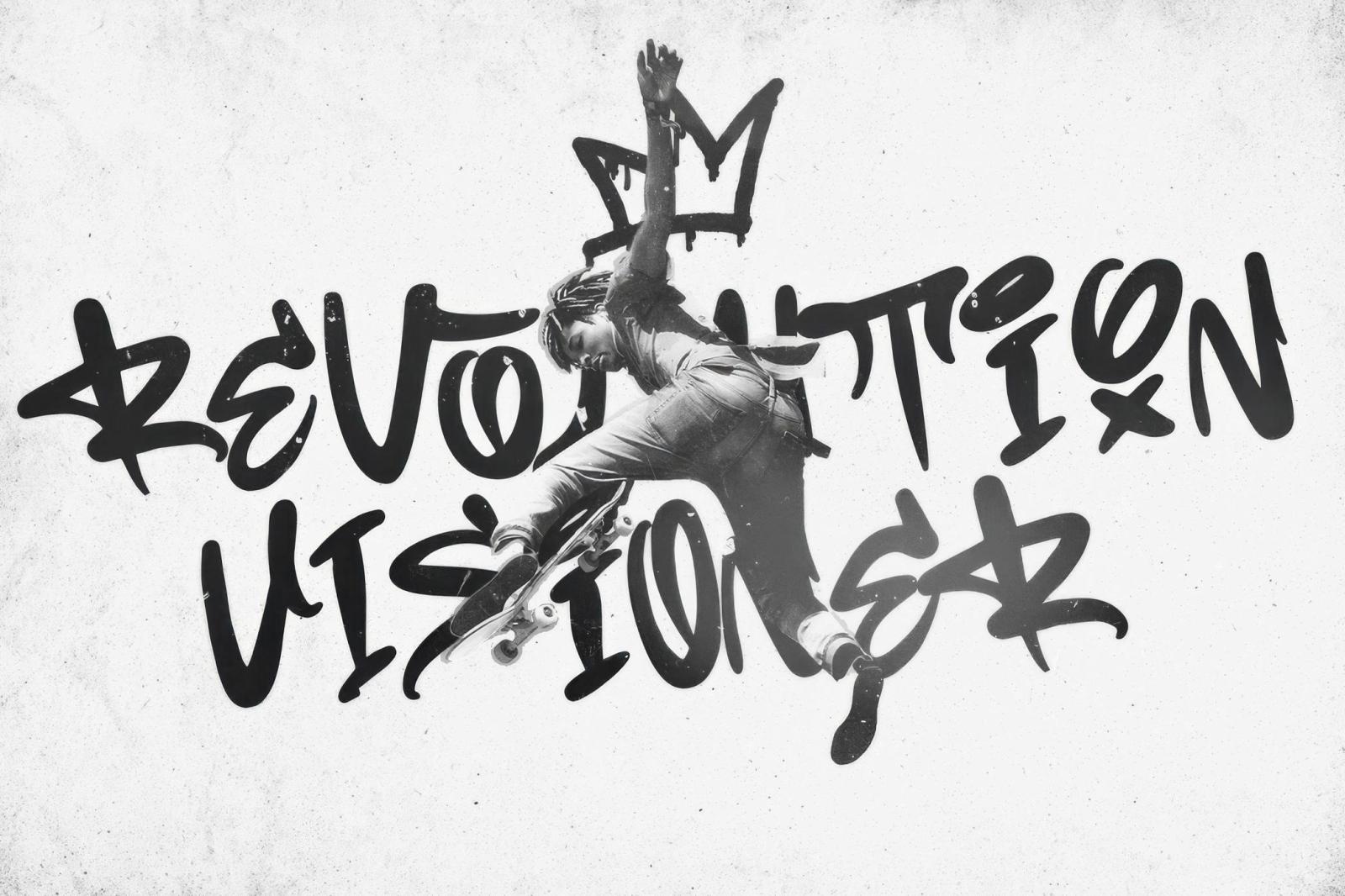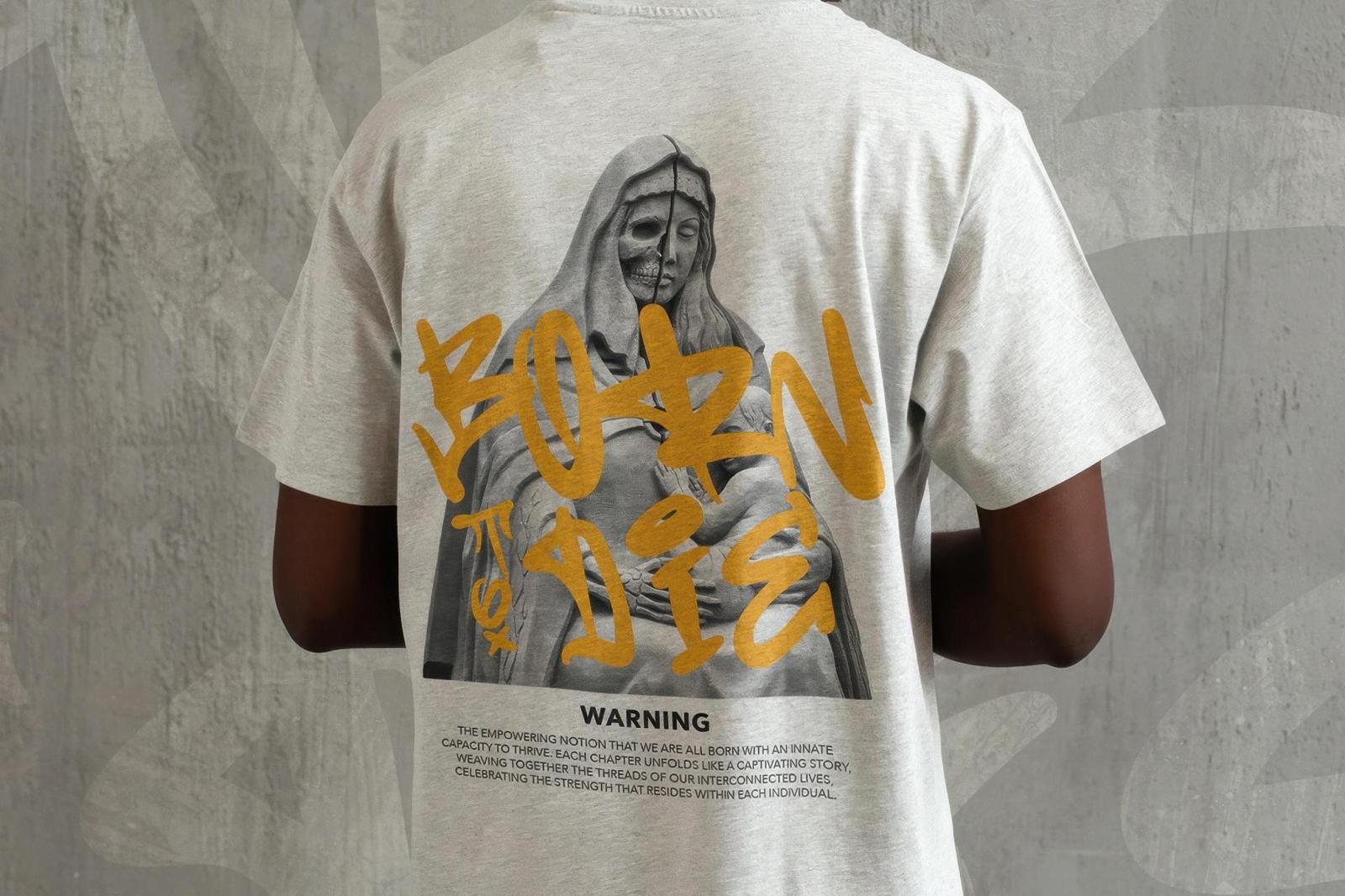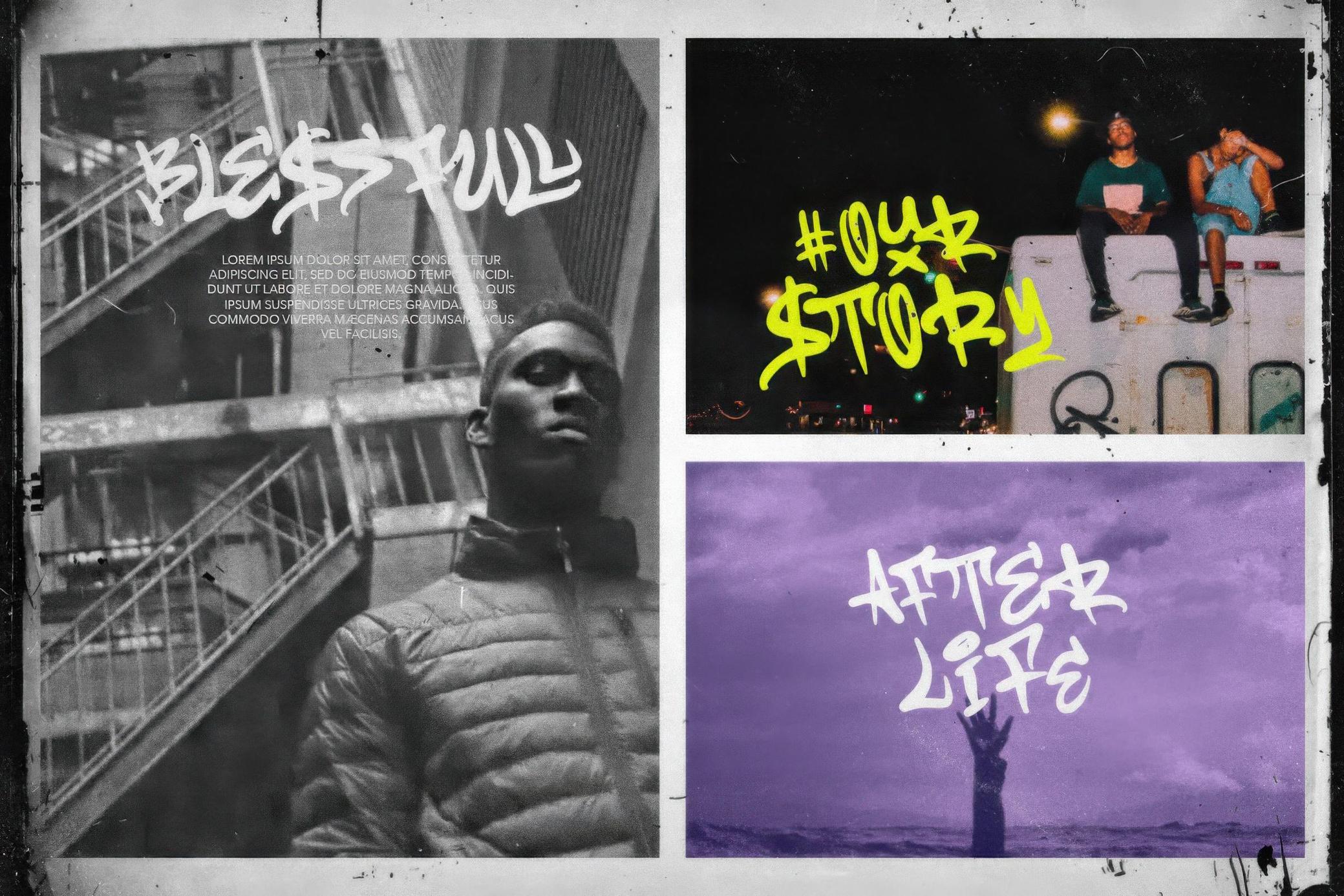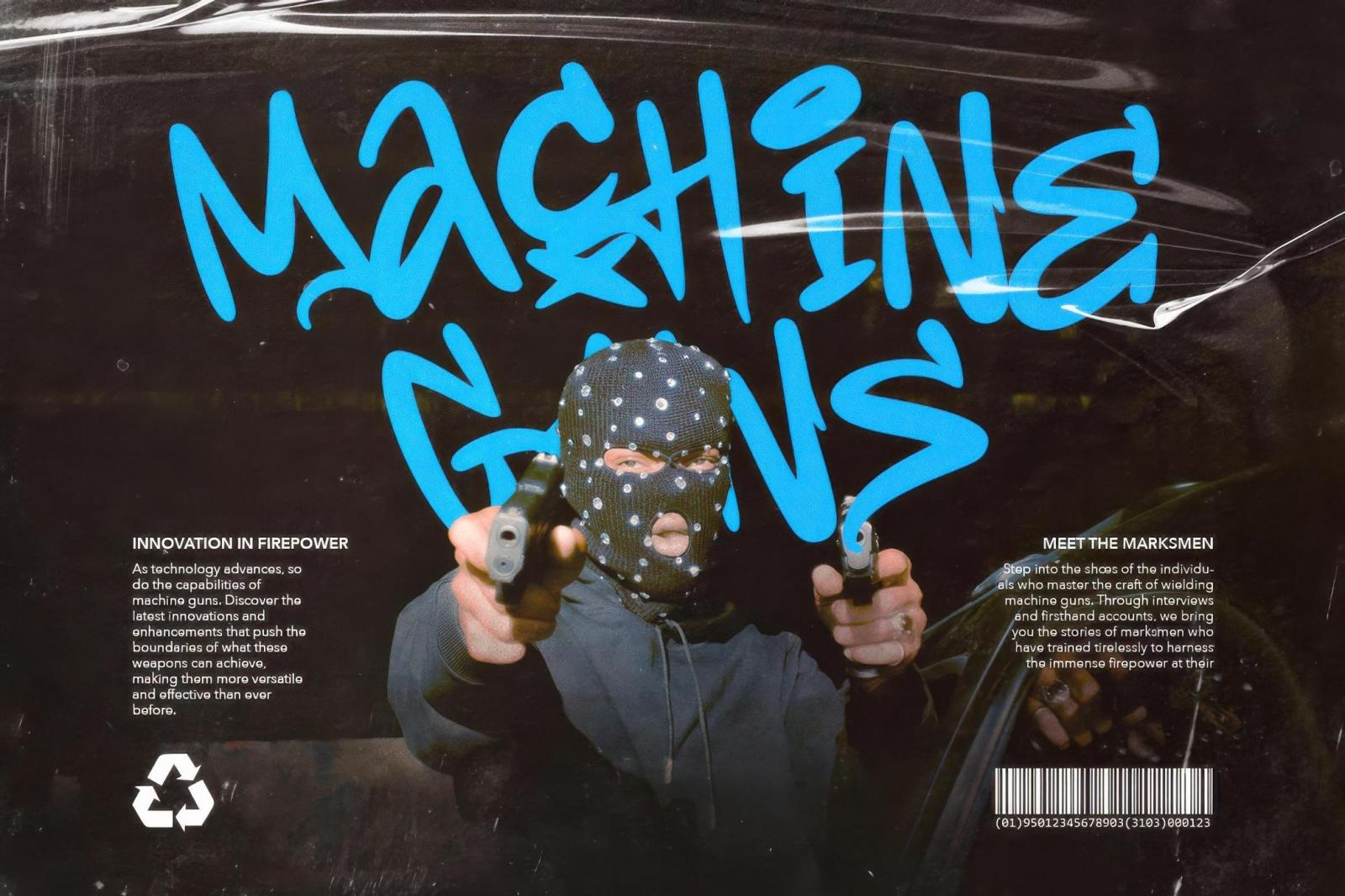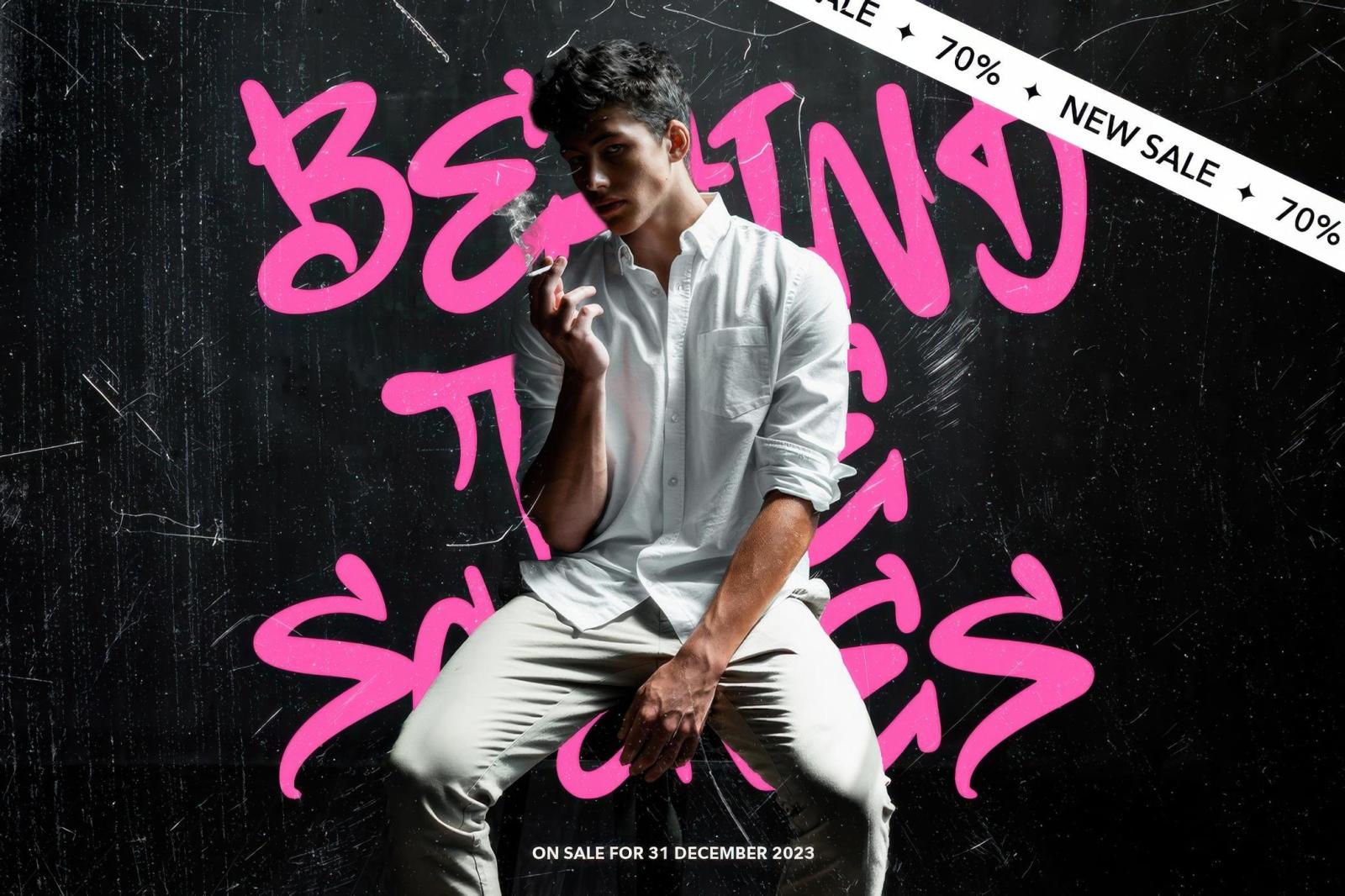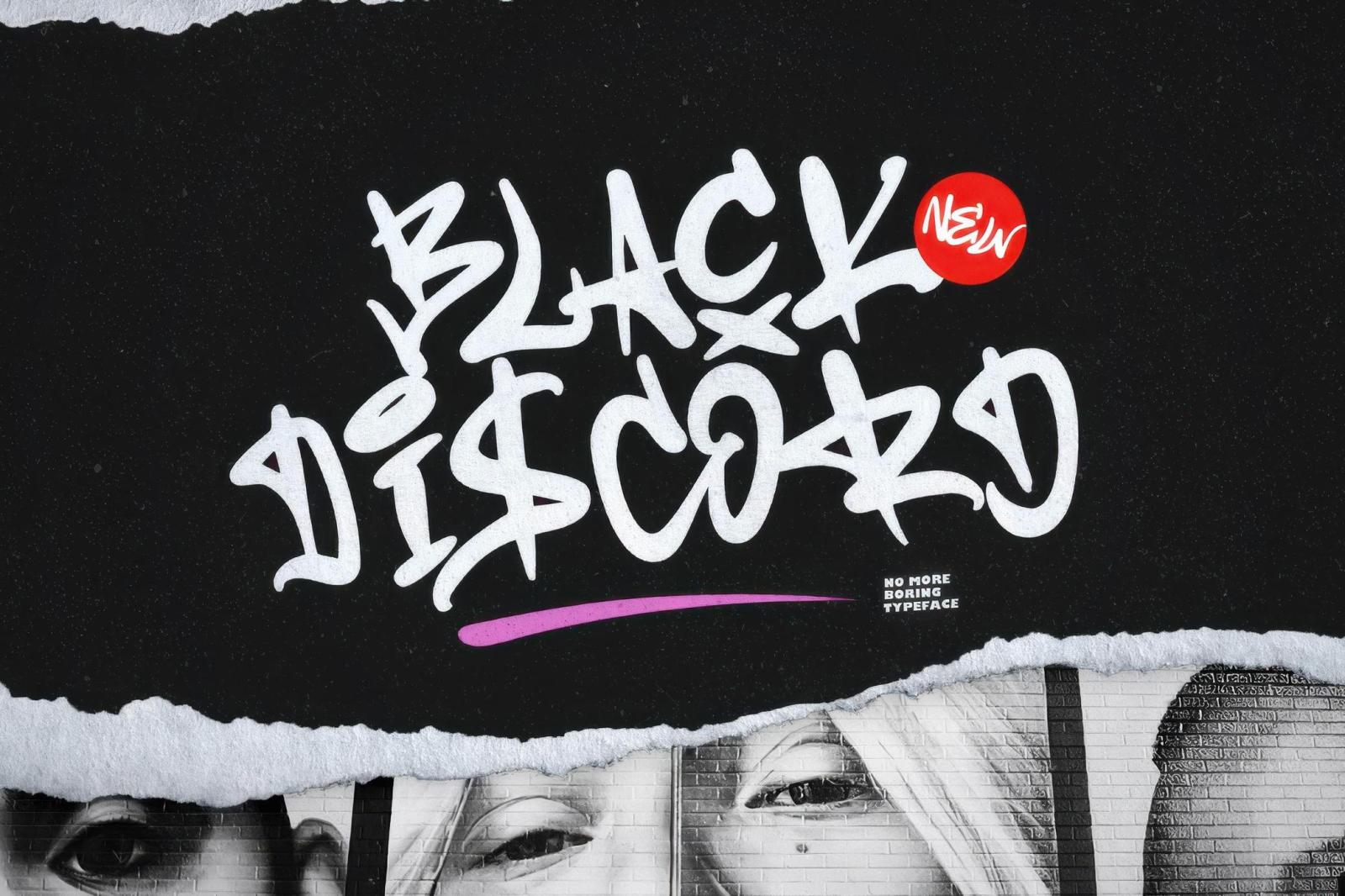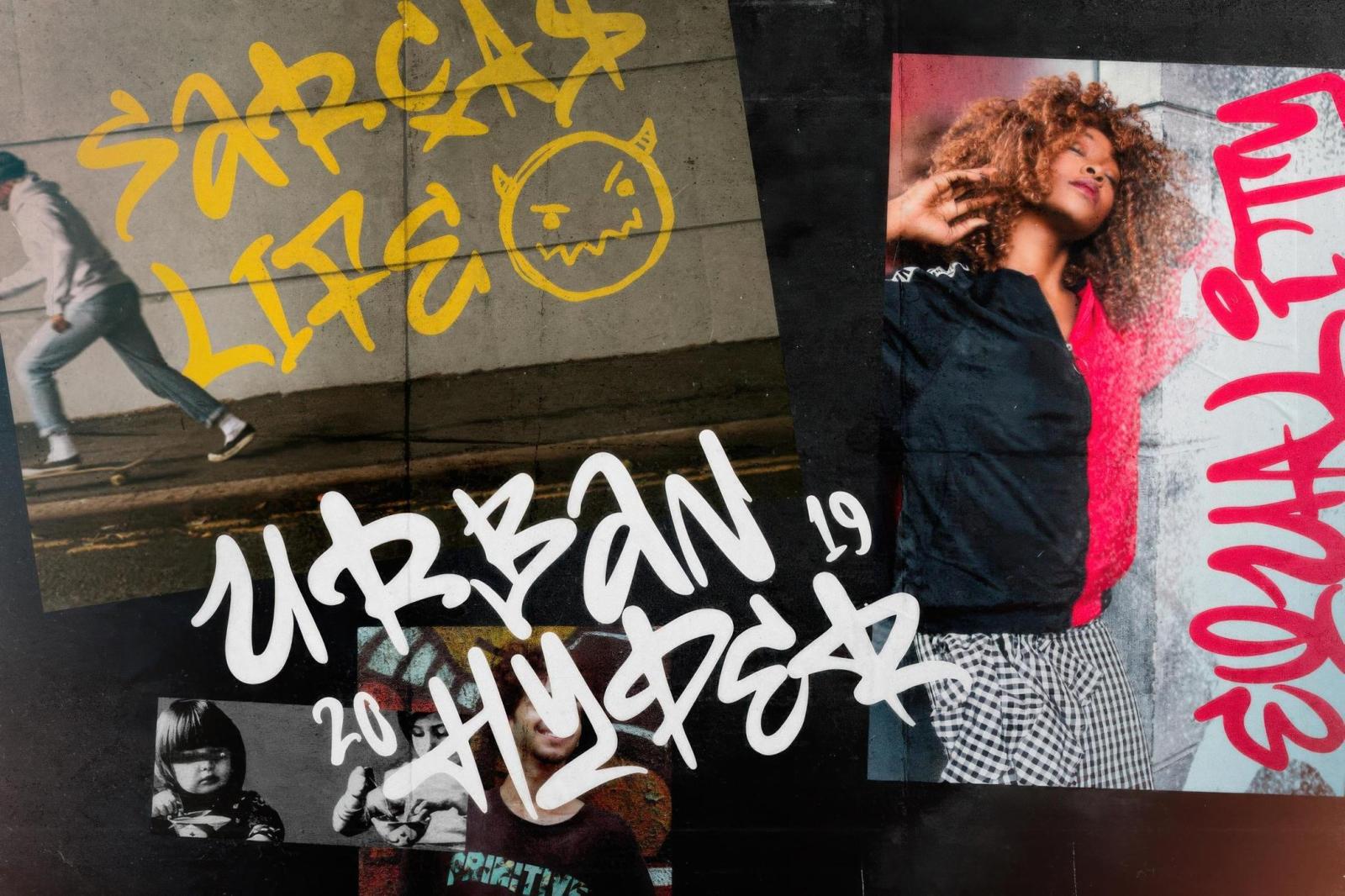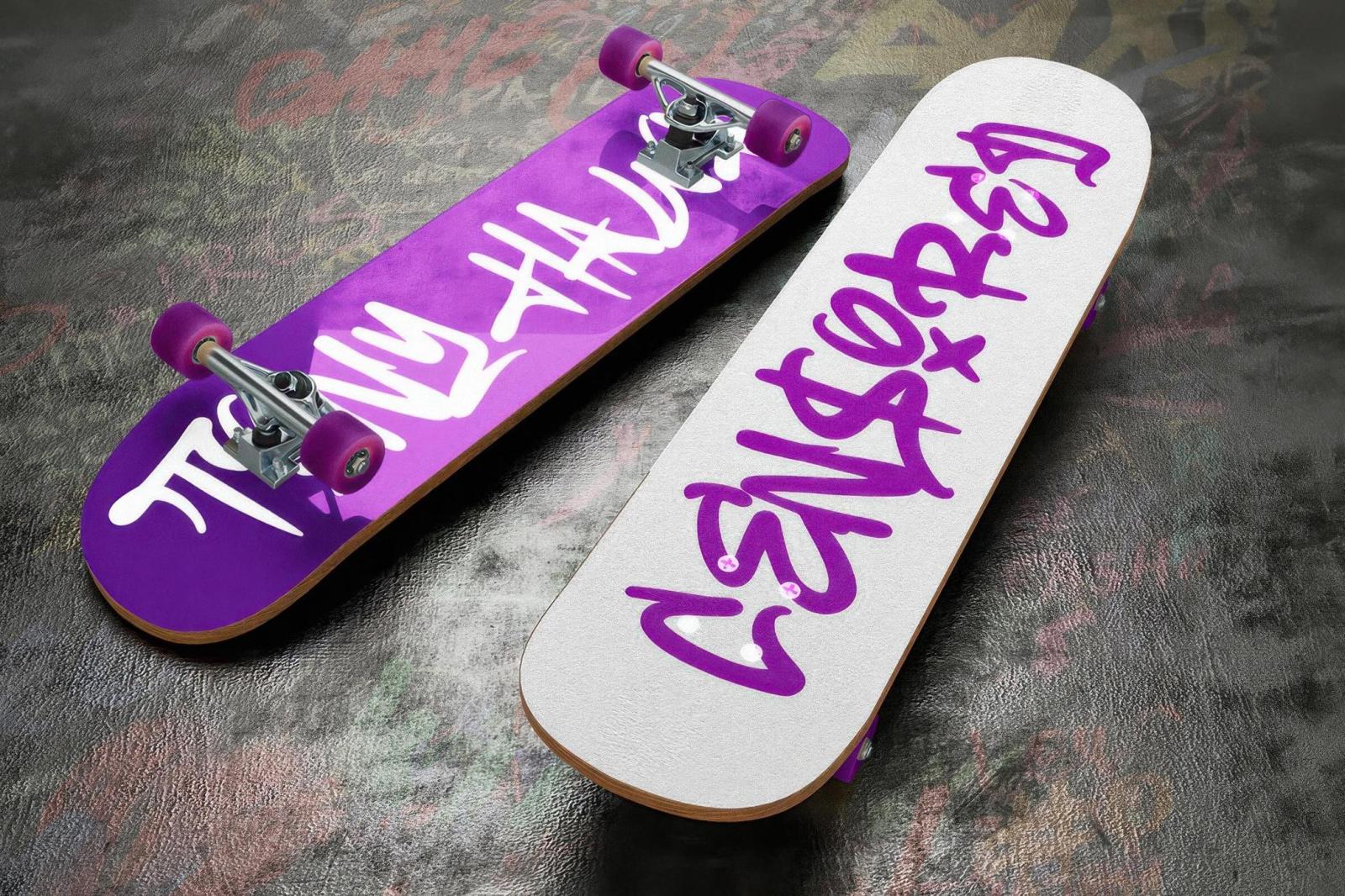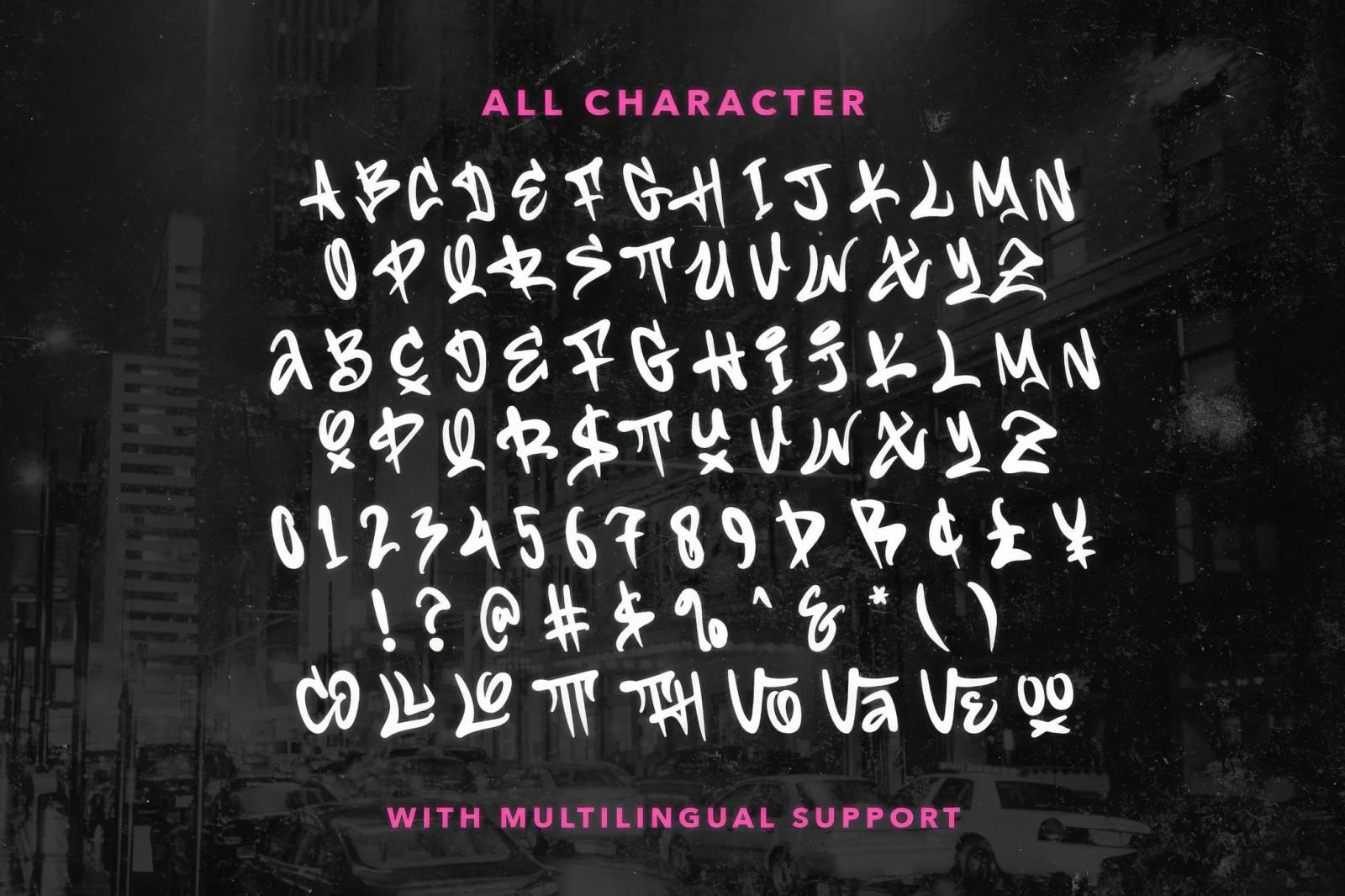
Black Discord — Graffiti Font
From the streets straight to your screen, Black Discord display font jumps from the urban landscape to your design toolbox without losing a beat. It brings that raw, rebellious energy you can feel in every twist of the line.
This font reminds us that graffiti is a form of art. Featuring uppercase, lowercase, numerals, and punctuation , it brings the whole crew together. While a bunch of ligatures add even more flow and personality. The extensive multilingual support ensures that your street cred knows no borders. Time to bring that raw, urban energy to your designs and make ‘em pop like fresh paint on a city wall. Whether you're crafting for a streetwear drop, a music poster, or adding that extra punch to your brand, this font delivers the attitude.